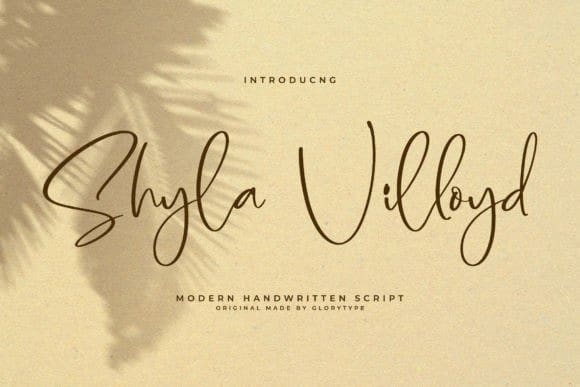
Shyla Villoyd Font
Shyla Villoyd Font is a magical script font carefully created with a touch of elegance. Whether you’re looking for fonts for Instagram or calligraphy scripts for DIY projects, this font will turn any creative idea into a true piece of art!